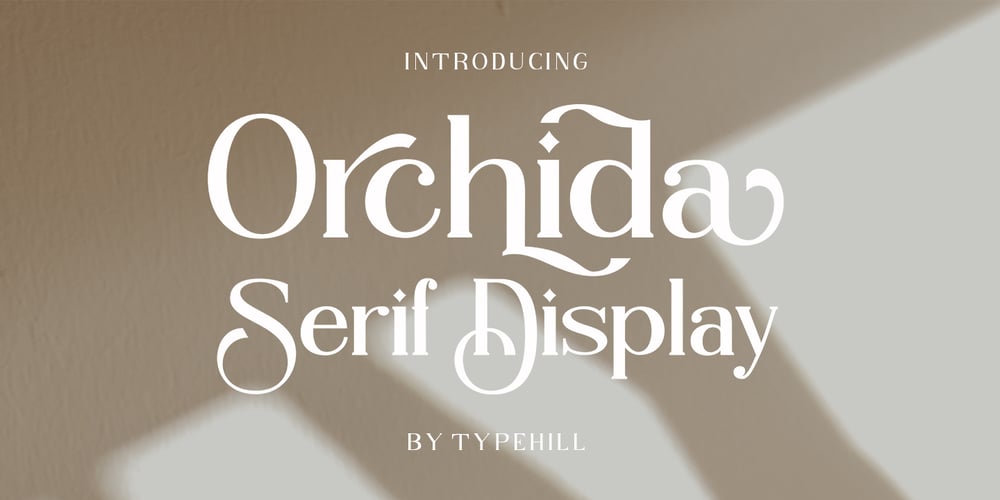
Orchida Serif Display Font Family was designed by Teuku Fahruddin and published by Typehill Studio. Orchida Serif Display contains 1 styles and family package options. Ochida Serif Display attracts a typeface that is smooth, clean, unique, elegant, modern, feminine, sensual, glamorous, simple and very easy to read. Classic style is very suitable to be applied in various formal forms such as invitations, labels, menus, logos, fashion, make up, stationery, letterpress, romantic novels, magazines, books, greeting/wedding cards, packaging, labels.Ochida Serif Display has alternative, Ligature and multilingual support.